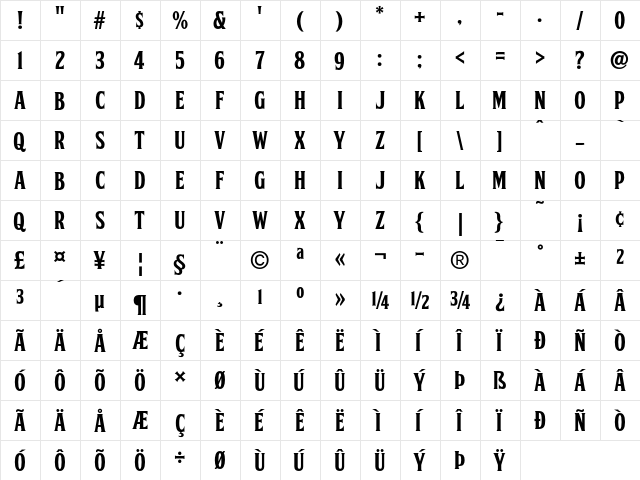
FTY SKORZHEN NCV Regular
Design Context for FTY SKORZHEN NCV Typeface
FTY SKORZHEN NCV takes a measured approach to typography — its balanced proportions and neutral character make it a reliable workhorse for both digital and print work.